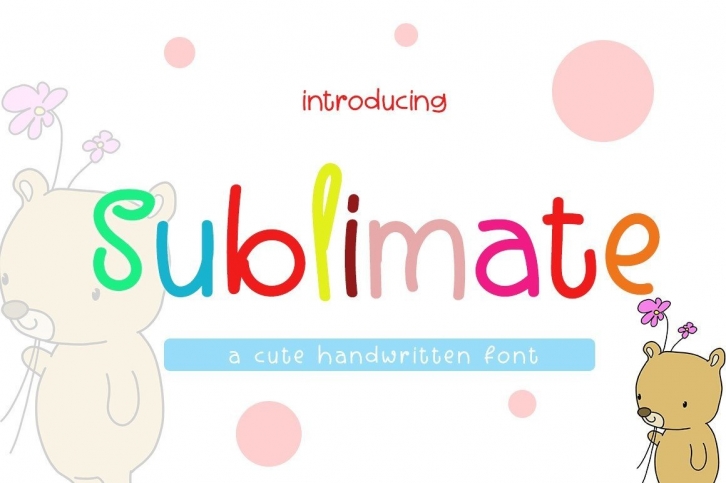
Sublimate is a beautiful and sweet font. It is fresh, clean, and elegant. This font will look amazing on a great number of projects, both formal and informal and it will add an incredibly joyful touch to your designs